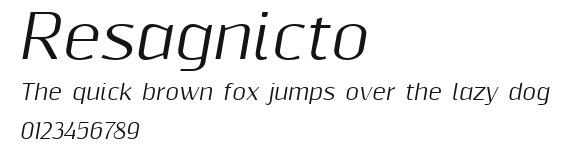
Resagnicto Preview
• Font Name: Resagnicto
• Full Font Name: ResagnictoItalic
About Resagnicto.ttf
Resagnicto.ttf is a modern, elegant sans-serif font designed for ultimate readability and visual harmony. Perfect for branding, headlines, web design, and print materials.